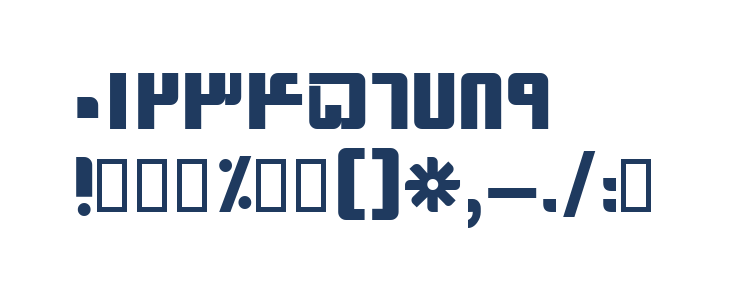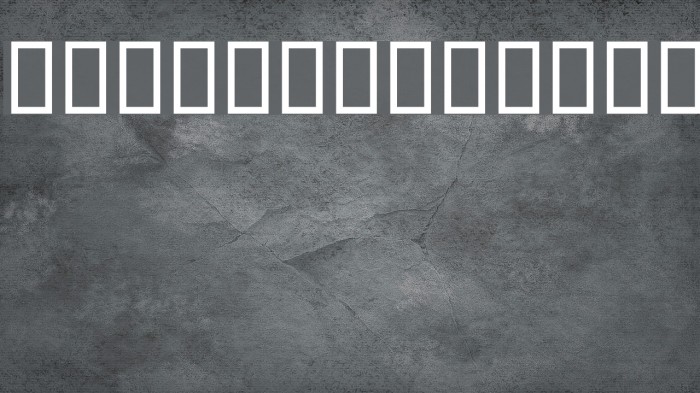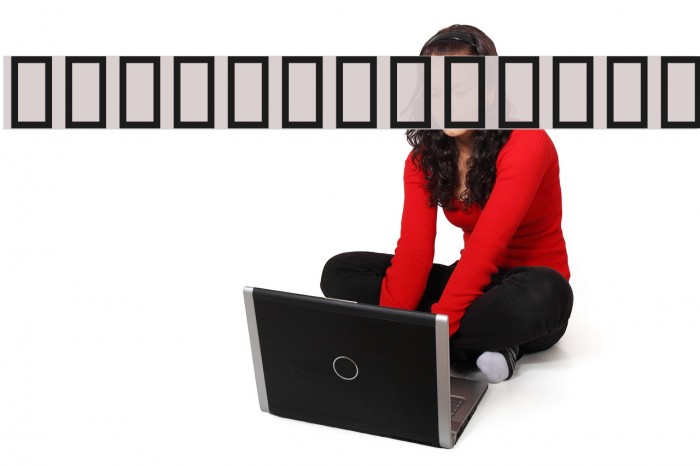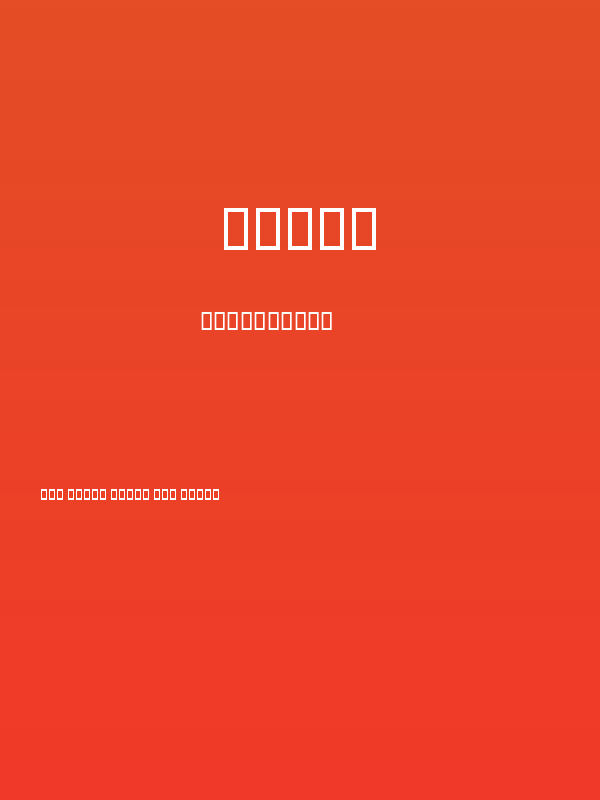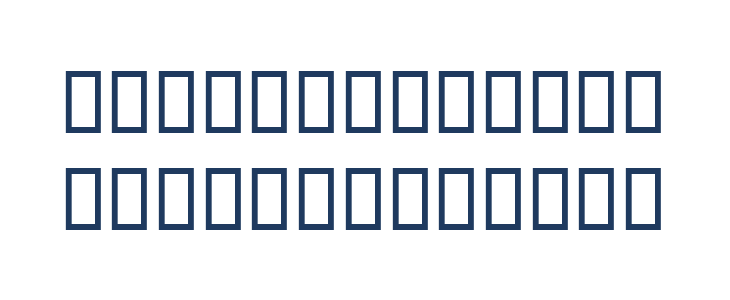
Sinaa Font
Sinaa Description
This font features a bold and robust style with a strong geometric influence. The characters are blocky and wide, giving them a commanding presence. The uppercase letters are particularly striking, with a uniform height and width that create a sense of stability and strength. The lowercase letters maintain this boldness, ensuring consistency across the typeface. The numerals are equally bold, designed to stand out with their thick strokes. Special characters are crafted with the same attention to detail, ensuring they integrate seamlessly with the rest of the font. Overall, this typeface is designed to make a statement, ideal for situations where impact is necessary.
| Proposed Projects | Ideal for branding, headlines, posters, and any project requiring a bold statement. |